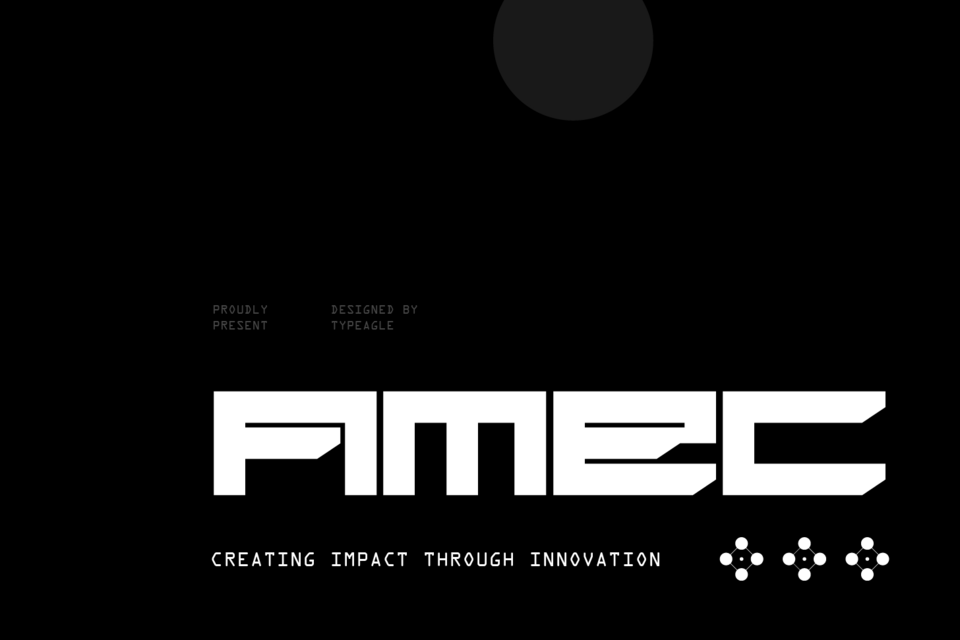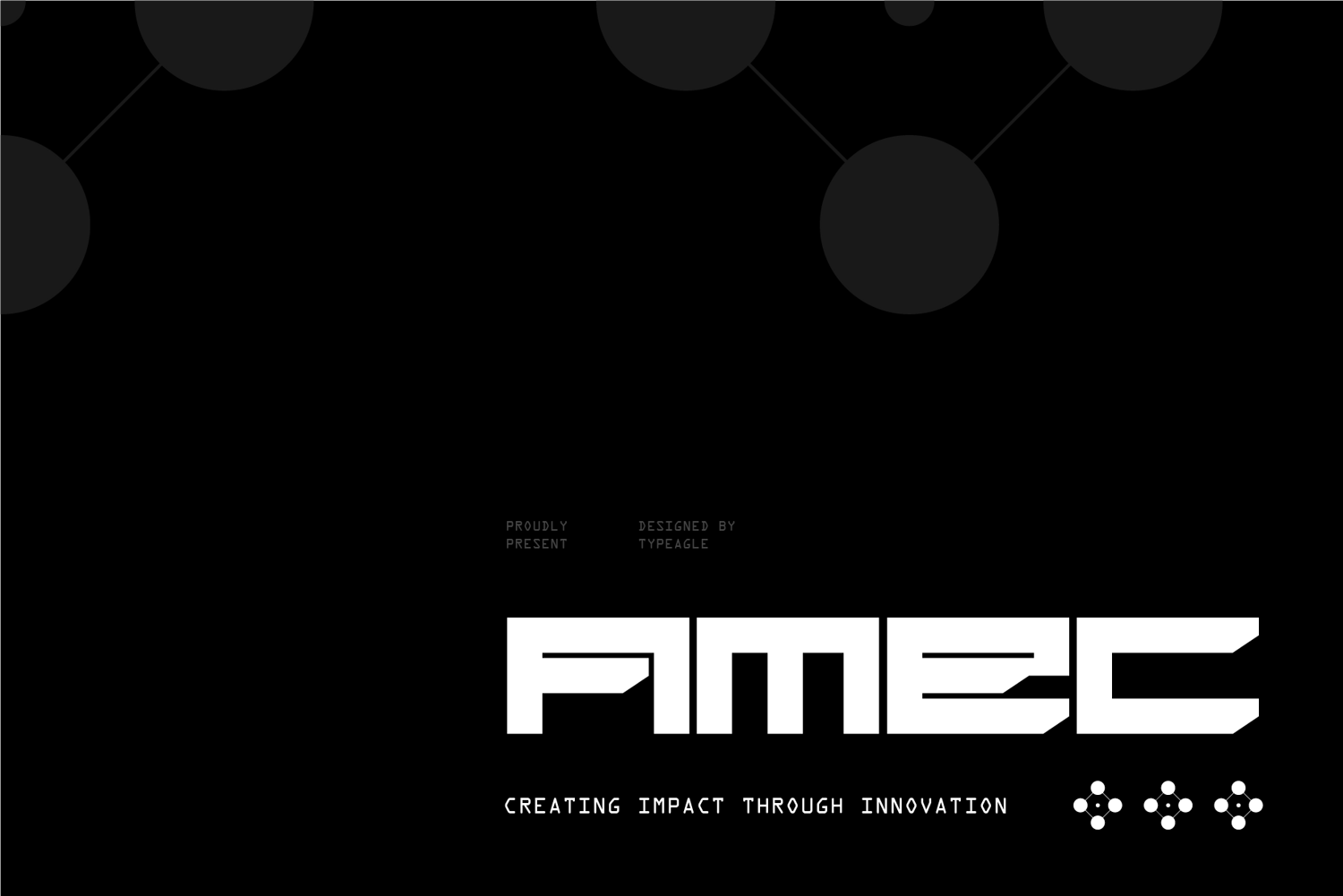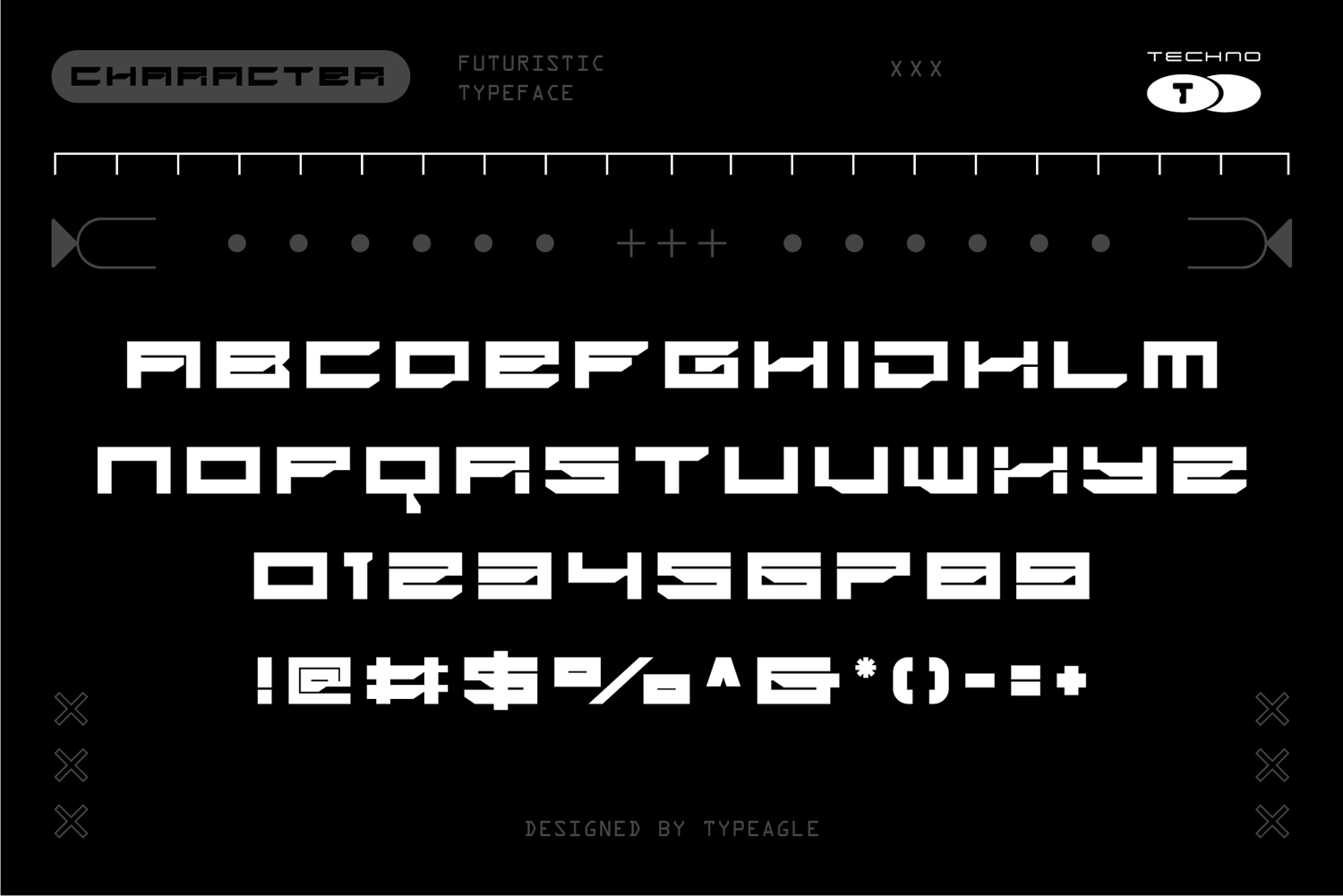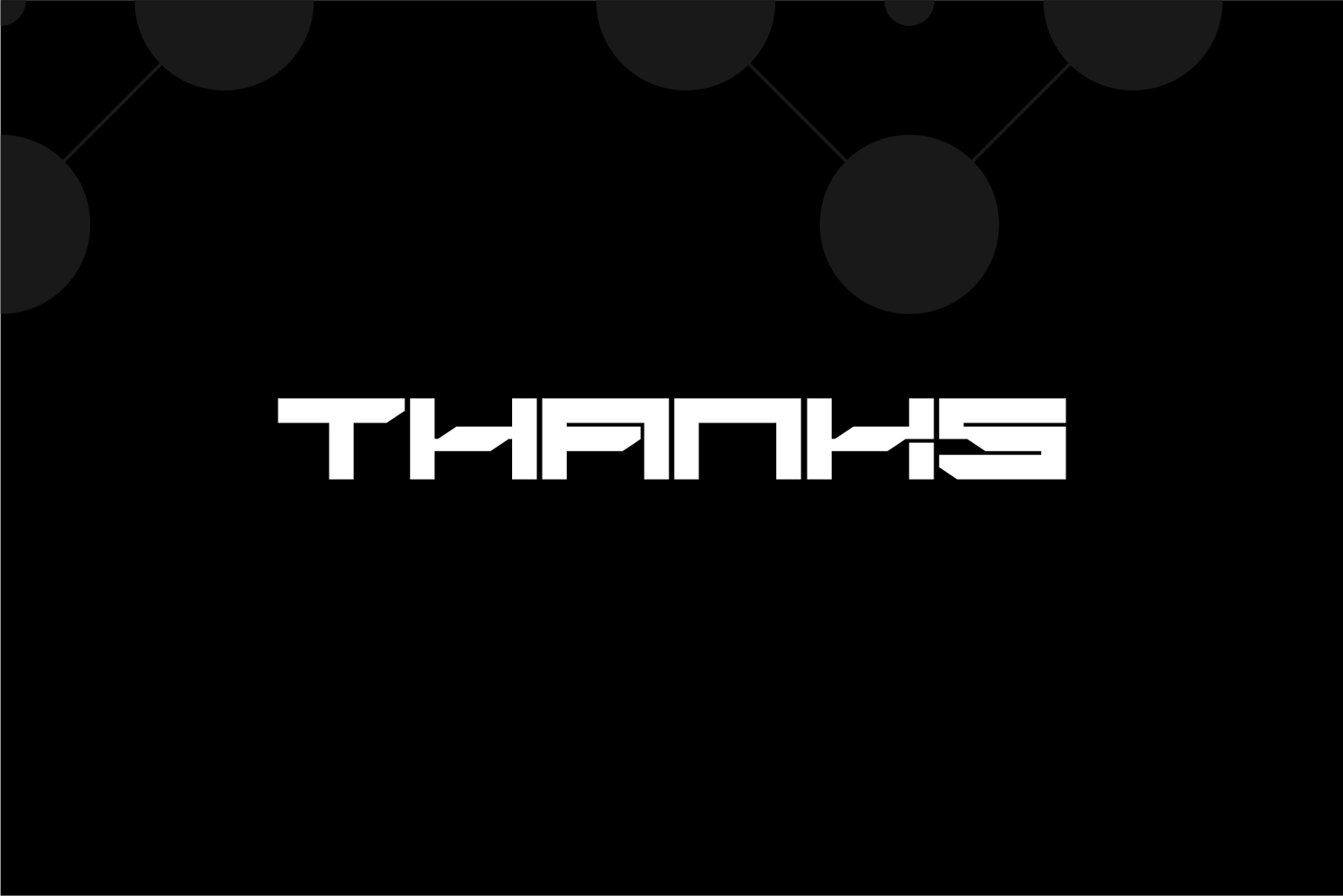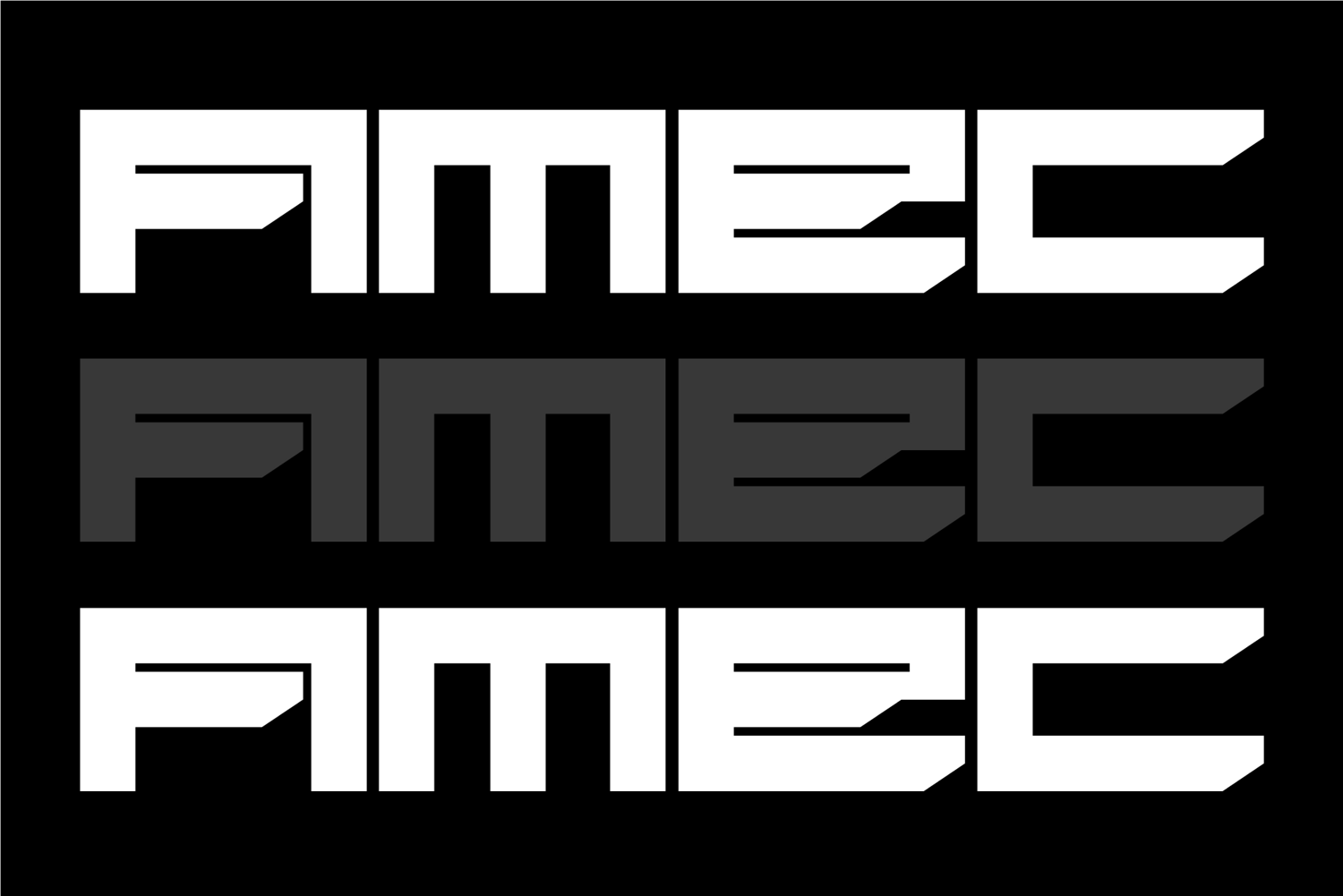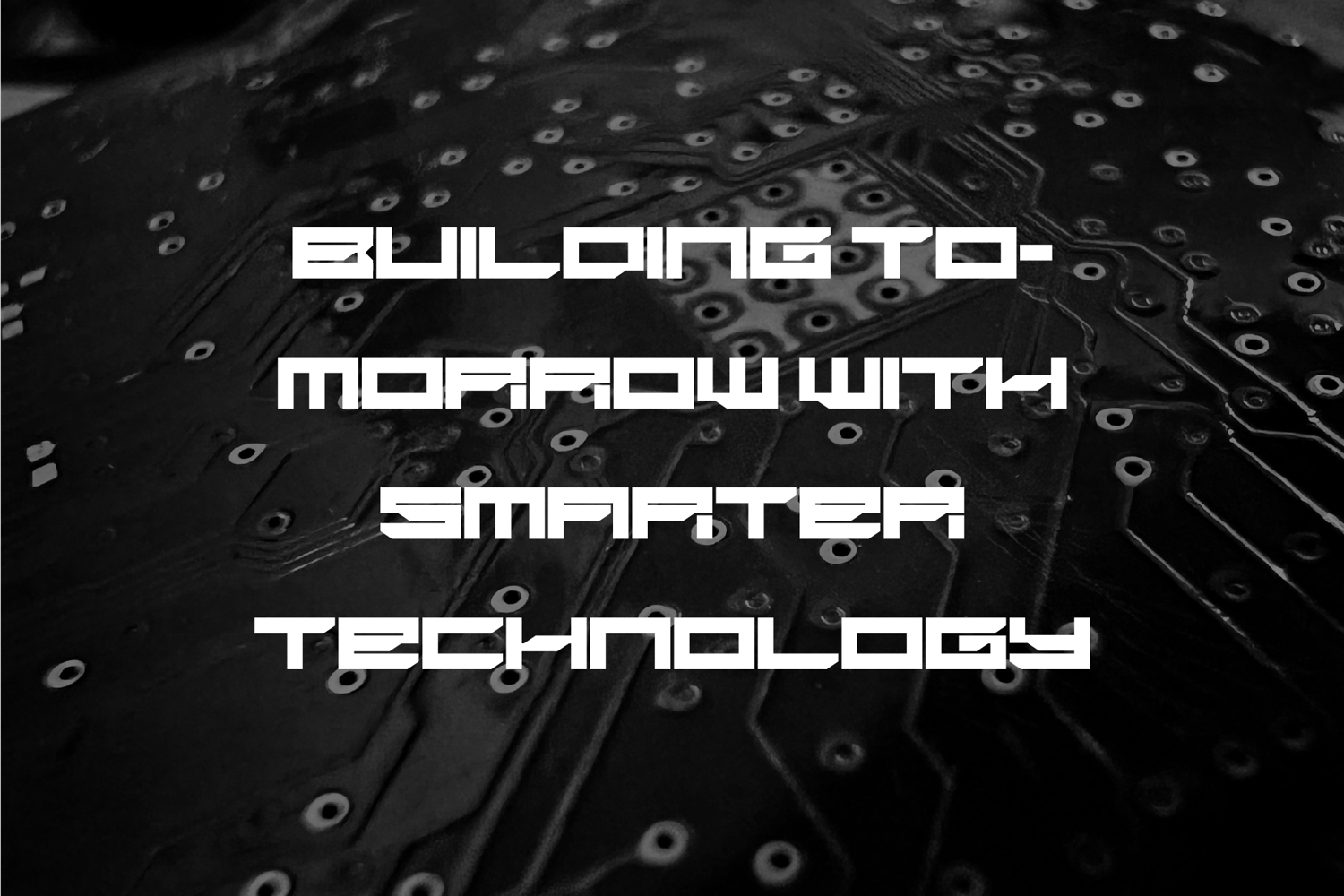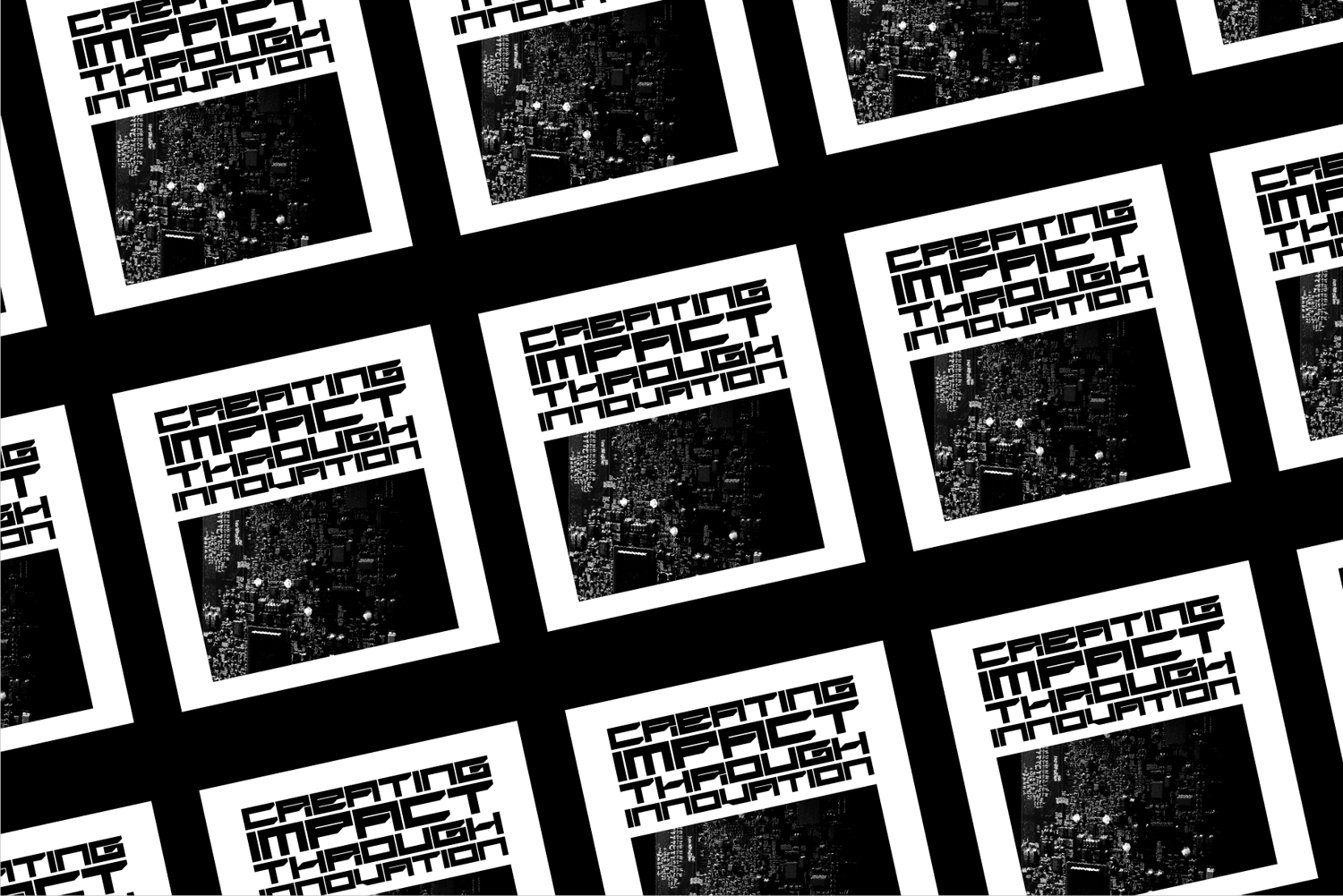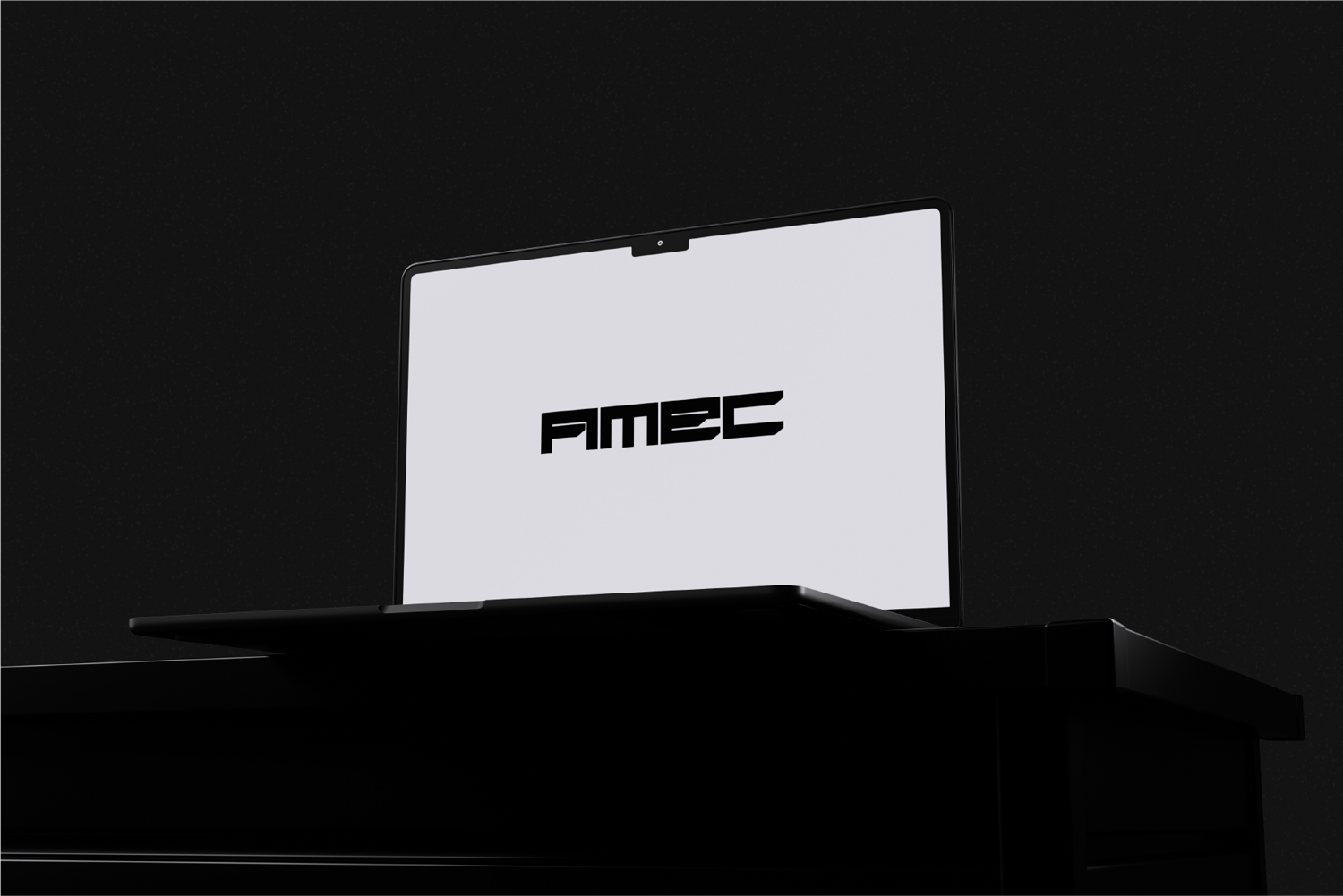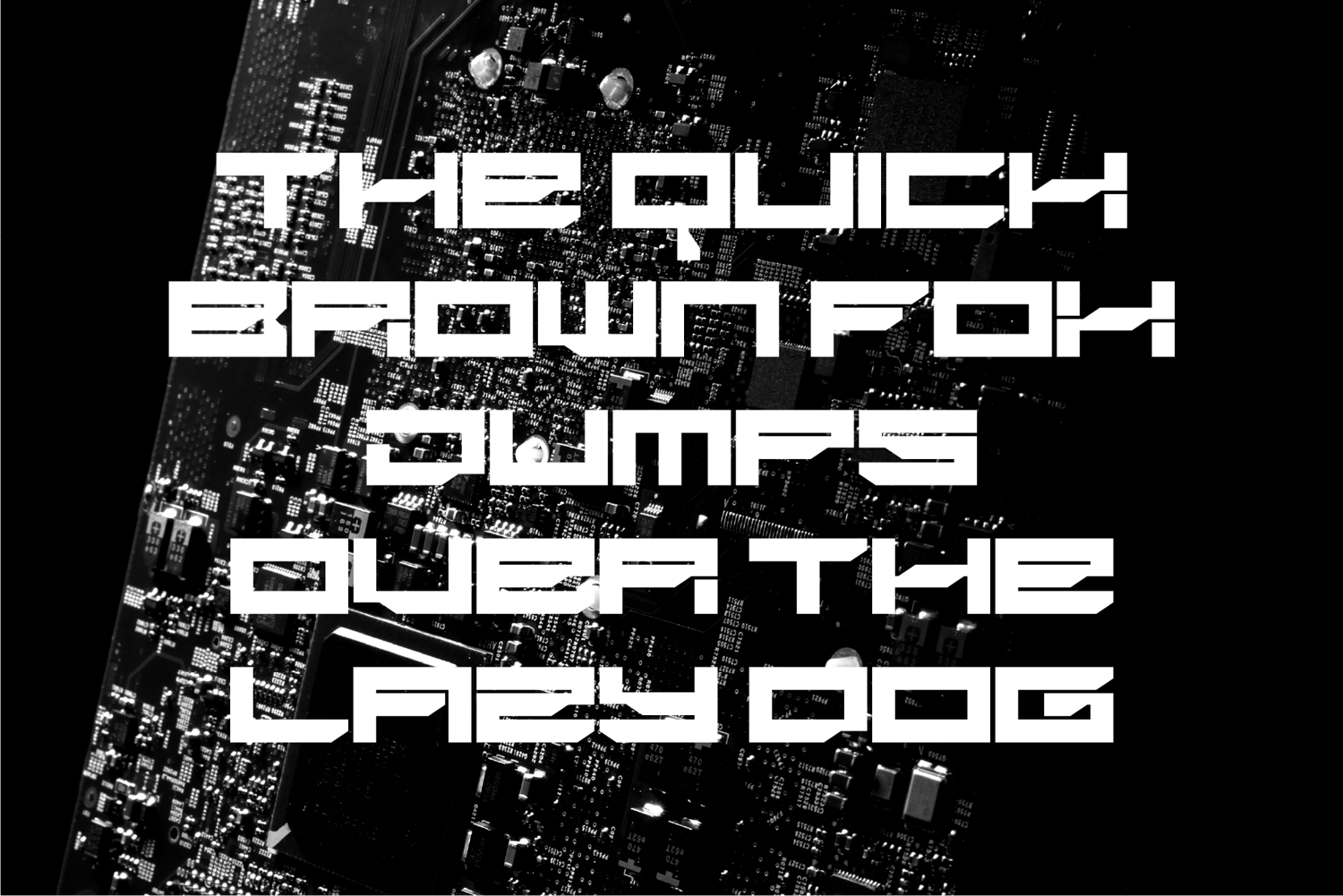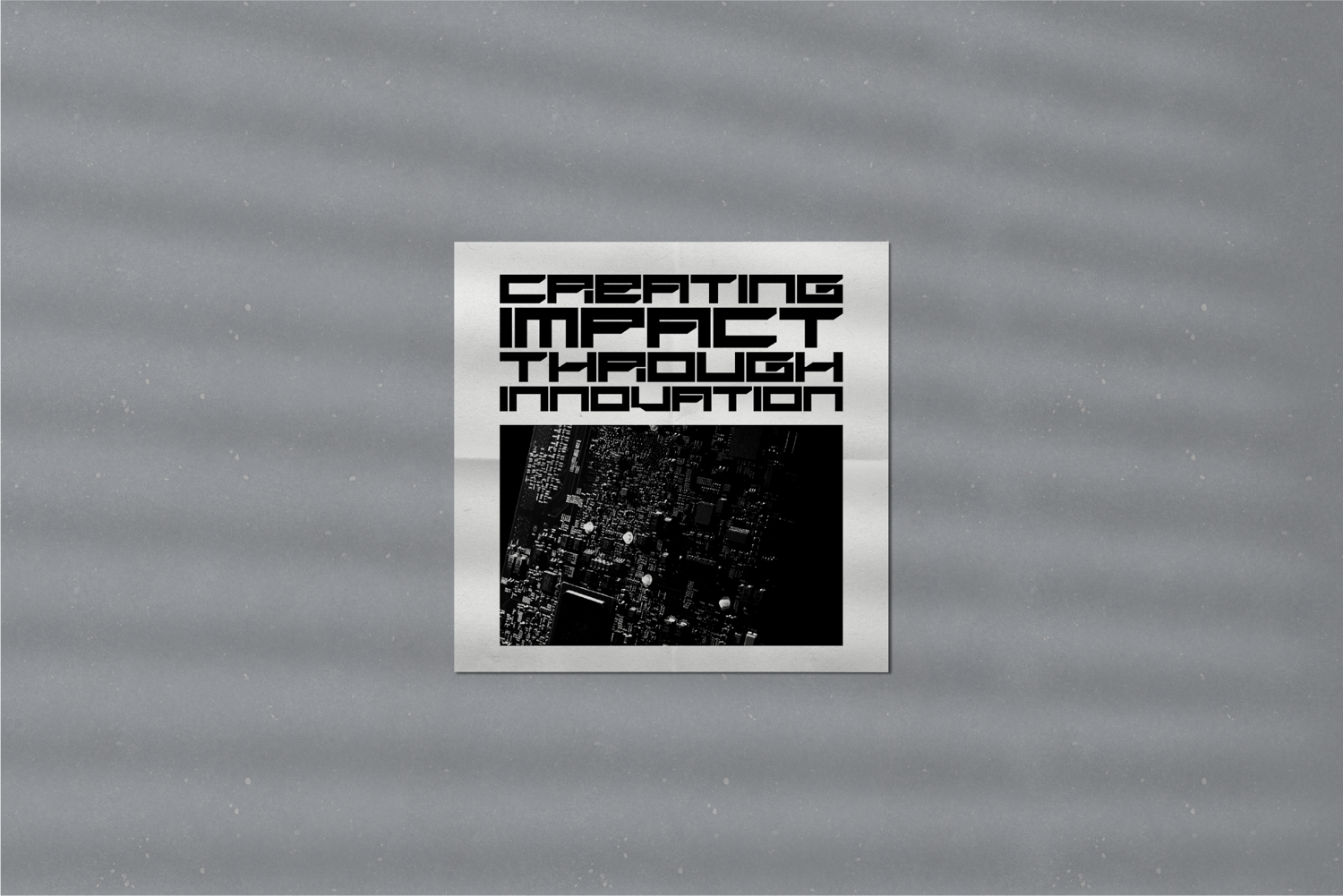
Amec - Futuristic Display Font
Amec is a futuristic typeface designed with a bold, modern, and forward-looking character. Its clean geometric forms and distinctive details create a strong visual identity inspired by technology, innovation, and the aesthetics of the future. Amec is ideal for branding, headlines, posters, digital interfaces, and creative projects that need a sleek and contemporary presence.